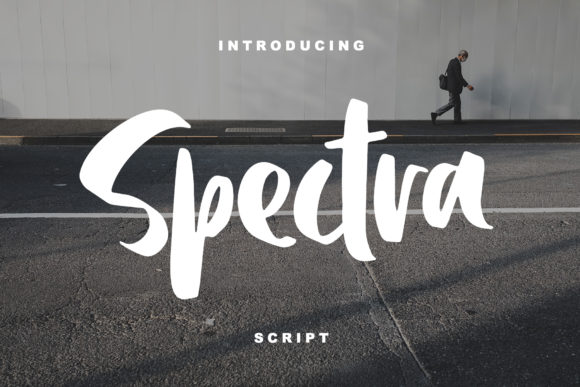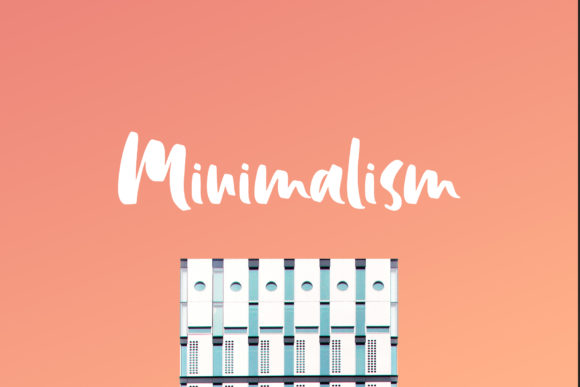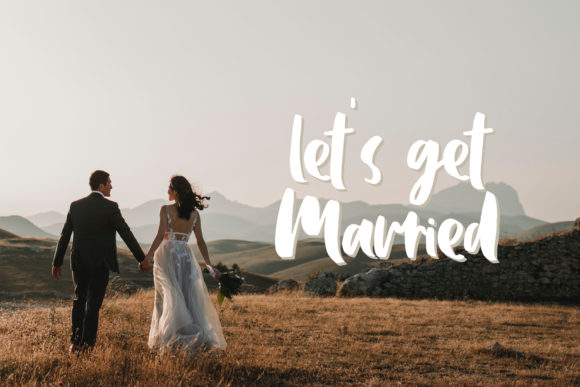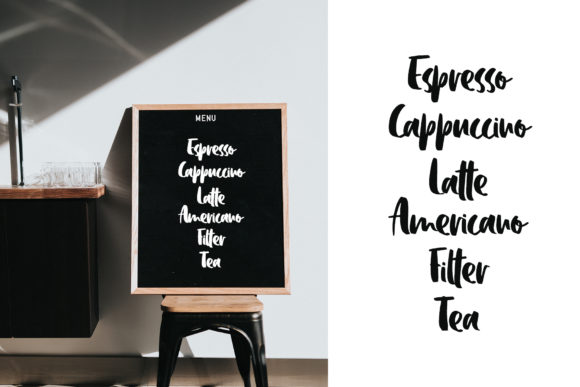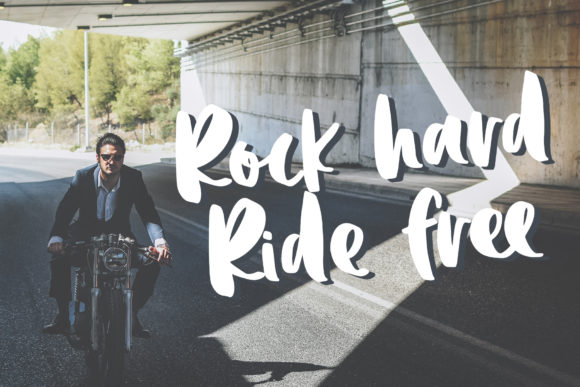
Spectra Script Font
About Spectra Script Font
Spectra is a fresh and bold script font with a lot of personality. It’s cute and bold, and will add a friendly feel to any design project!